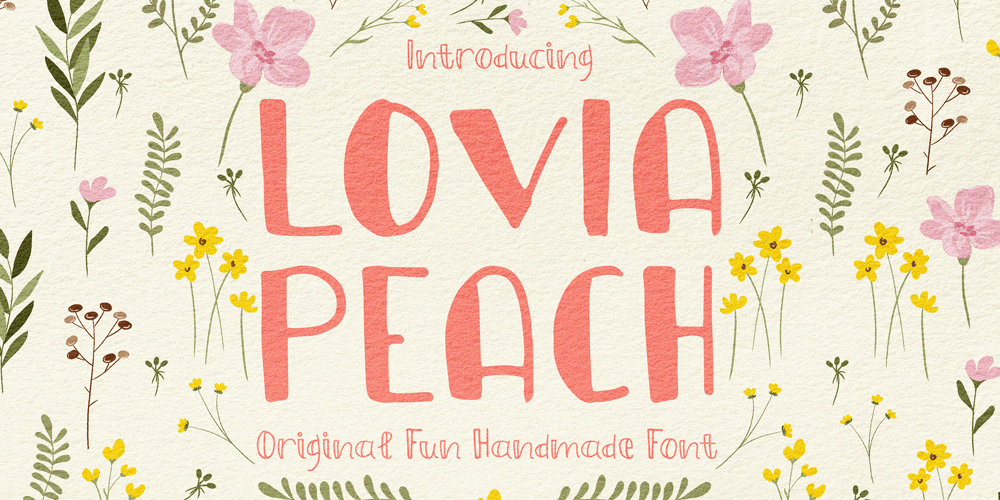
Lovia Peach
Lovia Peach font
Lovia Peach Font Family was designed by Archer Wood and published by Archer Wood. Lovia Peach contains 2 styles and family package options. Use this font in your branding to showcase your personality. It’s clean, professional and bold. Each letter is its own character. Perfect for use on social media posts and other marketing materials.Make your business stand out by writing in a way that’s unique to you. Use our handwriting font and give your brand a distinctive look.